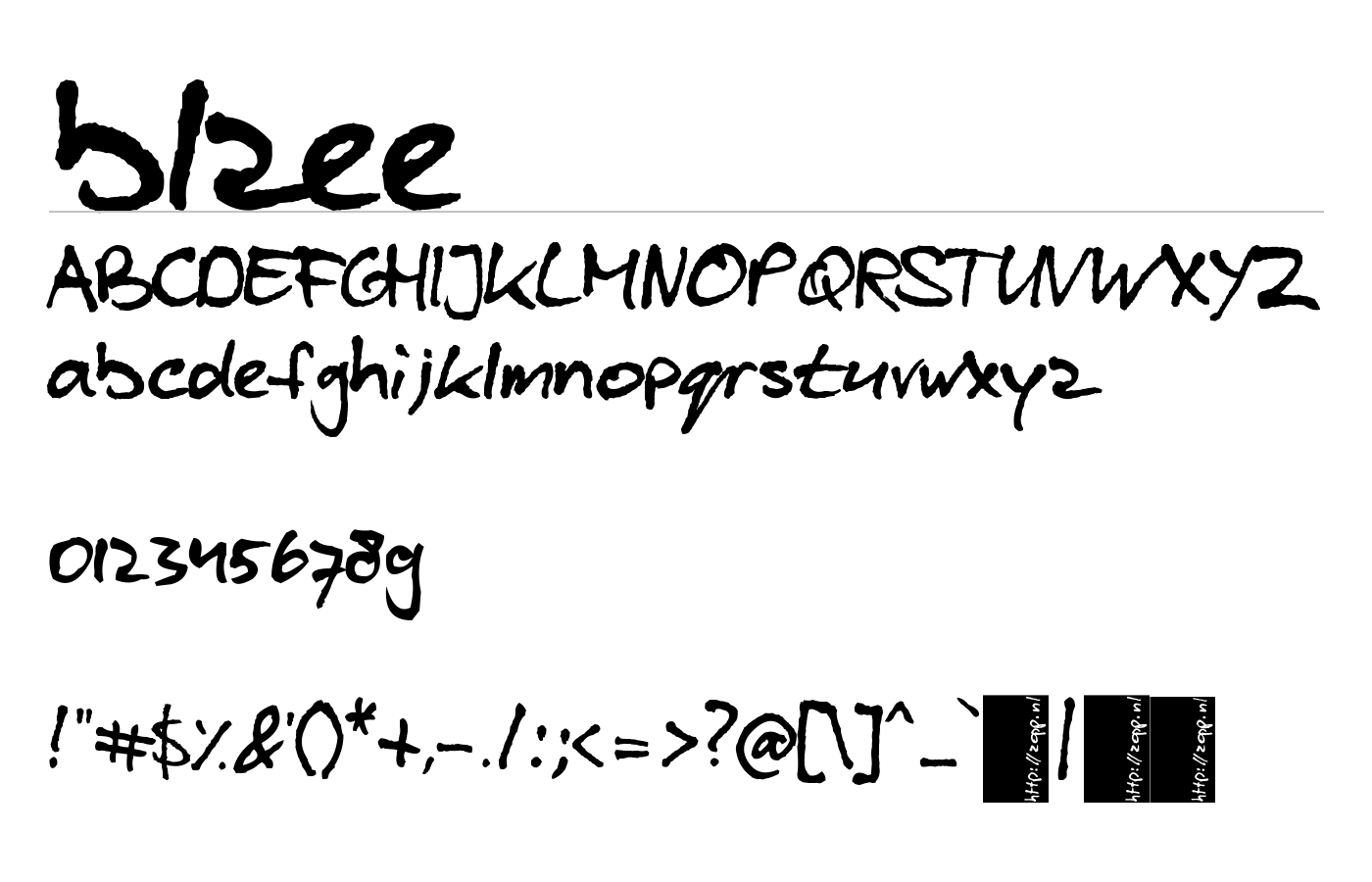
Blzee is a casual, hand-drawn script font with a playful and informal feel. Its irregular stroke weight and slightly rough edges give it an energetic, spontaneous look, making it ideal for creative projects, personal branding, or youth-oriented designs that want to evoke warmth and personality. This font works best in headlines, posters, or logos where a lively, approachable style is needed.
blzee Font